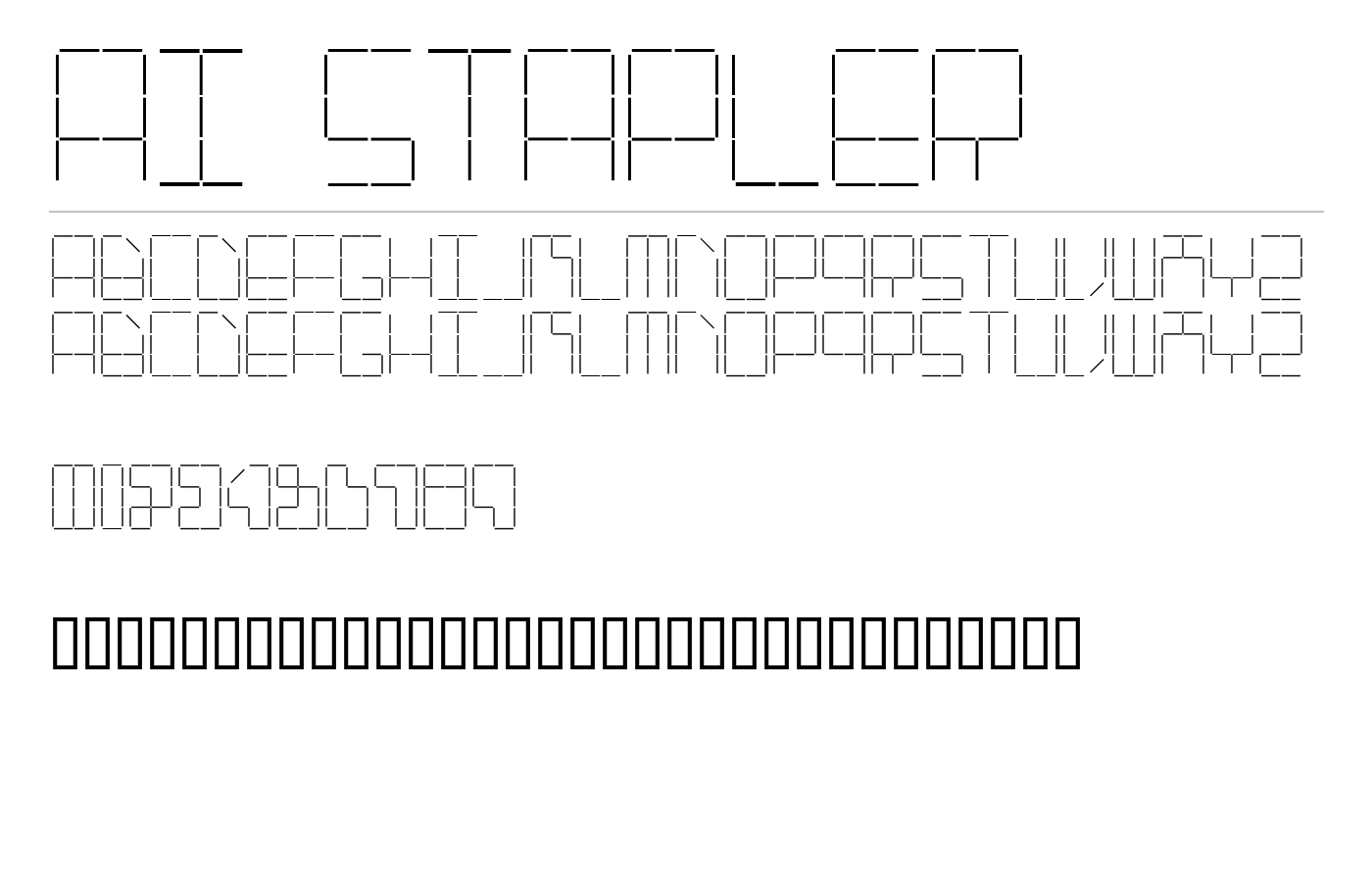
AI Stapler is a geometric, monospaced sans serif font with a minimalist, technical look. Its thin, straight lines and grid-like construction give it a clean, modern, and digital feel, making it ideal for tech branding, coding environments, or futuristic design projects where clarity and precision are key.
AI stapler Font